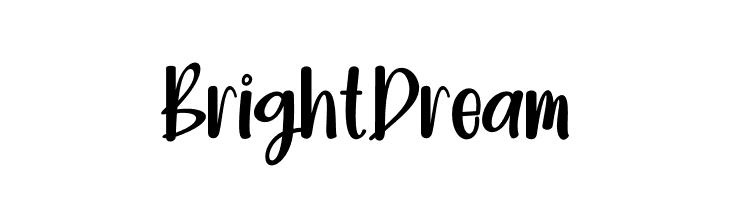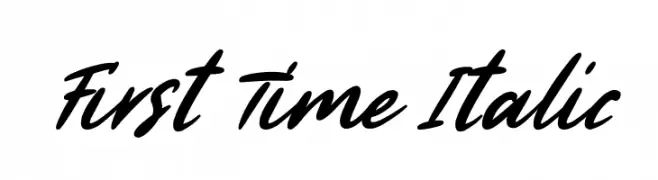
A bold, playful font with rounded strokes and a friendly appearance.
A fluid, handwritten style with dynamic strokes and a casual, artistic flair.
A dynamic and elegant cursive script font with a flowing style.
A bold, geometric font with a vintage, blocky style.
A bold, flowing script font with elegant and cursive letterforms.
An elegant font with flowing swashes and intricate curves, perfect for artistic projects.
A bold, cursive, and italic font with a dynamic handwritten style.
A bold, italic font with strong diagonal emphasis and thick strokes.
A bold, dramatic font with sharp angles and smooth curves, perfect for impactful designs.
A bold, high-contrast serif font with a strong, elegant presence.